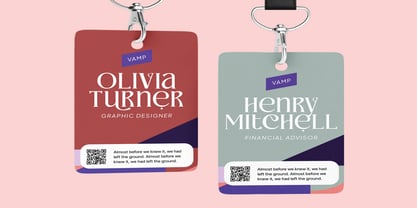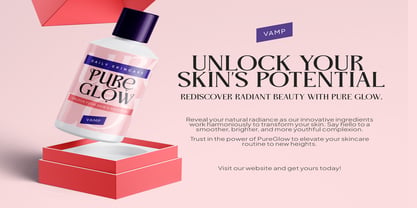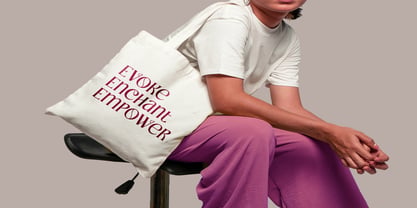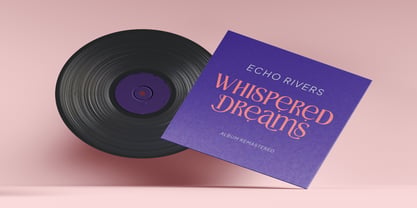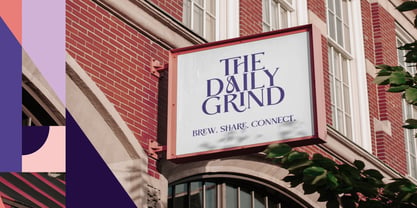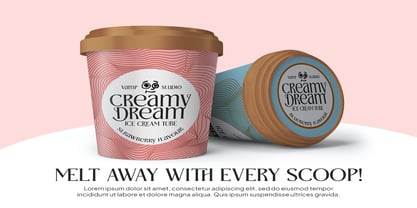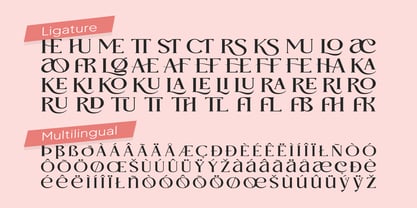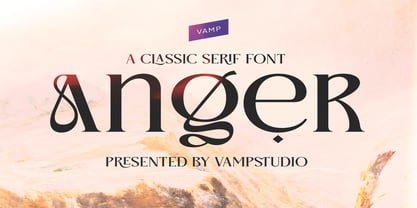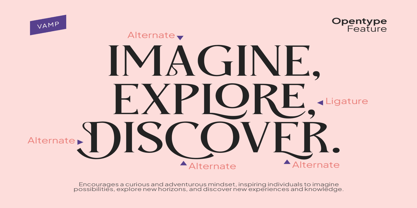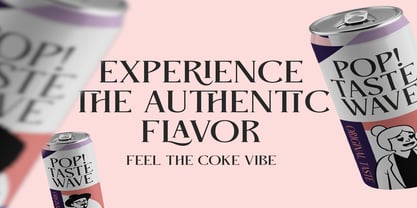
Anger
by Vampstudio
The Anger Font Family was designed by Irfan syah and published by Vampstudio. Anger contains 4 styles and family package options. More about this family
Introducing Anger, a classic serif typeface that exudes elegance and style. With its simplicity, cleanliness, and refined design, this font is the ideal choice for a variety of projects and brands. Meticulously crafted by skilled hands, Anger adds a touch of sophistication to your typography. This versatile font is perfectly suited for branding projects, logos, wedding designs, social media posts, advertisements, product packaging, product designs, labels, photography, watermarks, invitations, stationery, and more. Enhance your creative endeavors with Anger, where timeless design meets modern utility.